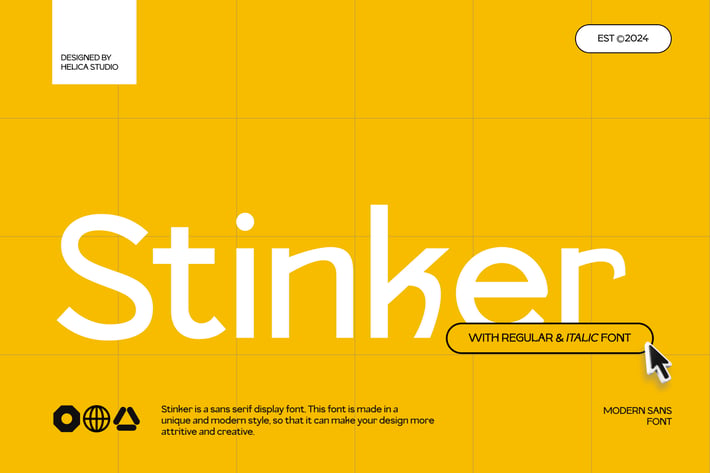
Stinker Modern Sans Display Font
Stinker Modern Sans Display Font typeface is perfect for crafting elegant quotes, stunning logos, captivating magazine headers, and so much more.
Ligatures, Numeral & Punctuations
Regular & Italic Font Version